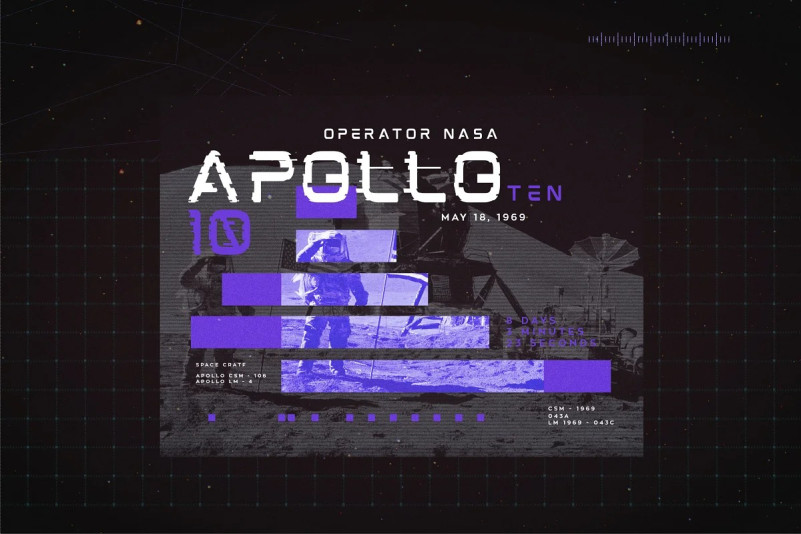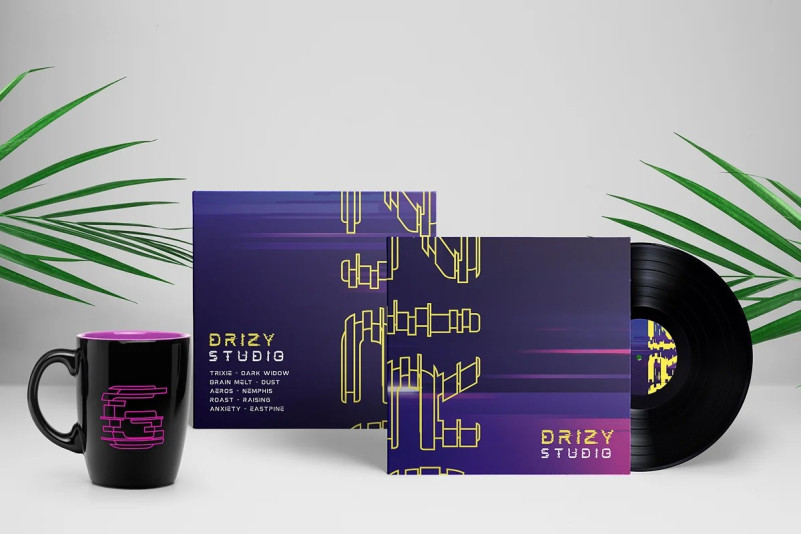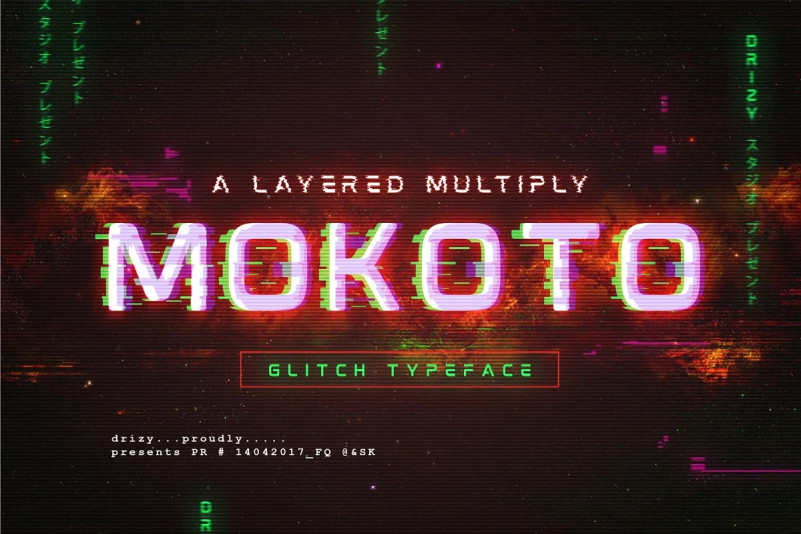
Mokoto Font
Mokoto Font is an experimental font that gives the appearance of digital glitching effect !! Inspired from modern fonts and slicing image in error system, to create something different and compelling.
This font makes way for the creativity of each and every one. You can easily add your text using the font layer. Mokoto contains 4 font layer (Regular, Glitch Mark I, Glitch Mark II, and Glitch Outline Regular). You can customize the layer to your need. Modify, give it colors and blending to instantly give futuristic feel and glitch effects.
Mokoto is the ideal display or lead font for designs web, print projects, contemporary posters, forward looking motion graphics, video game, cover CD Album, and other items like logos, poster/ flyer, branding, packaging, pictograms, etc.